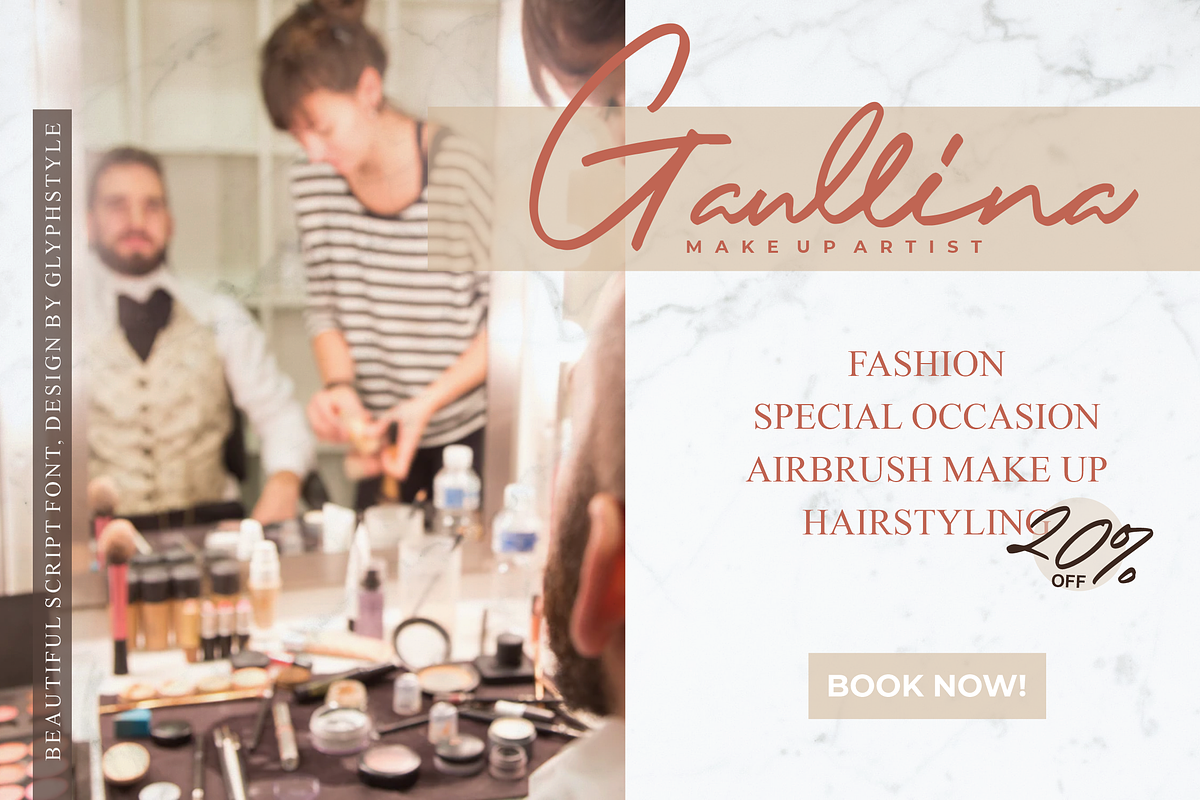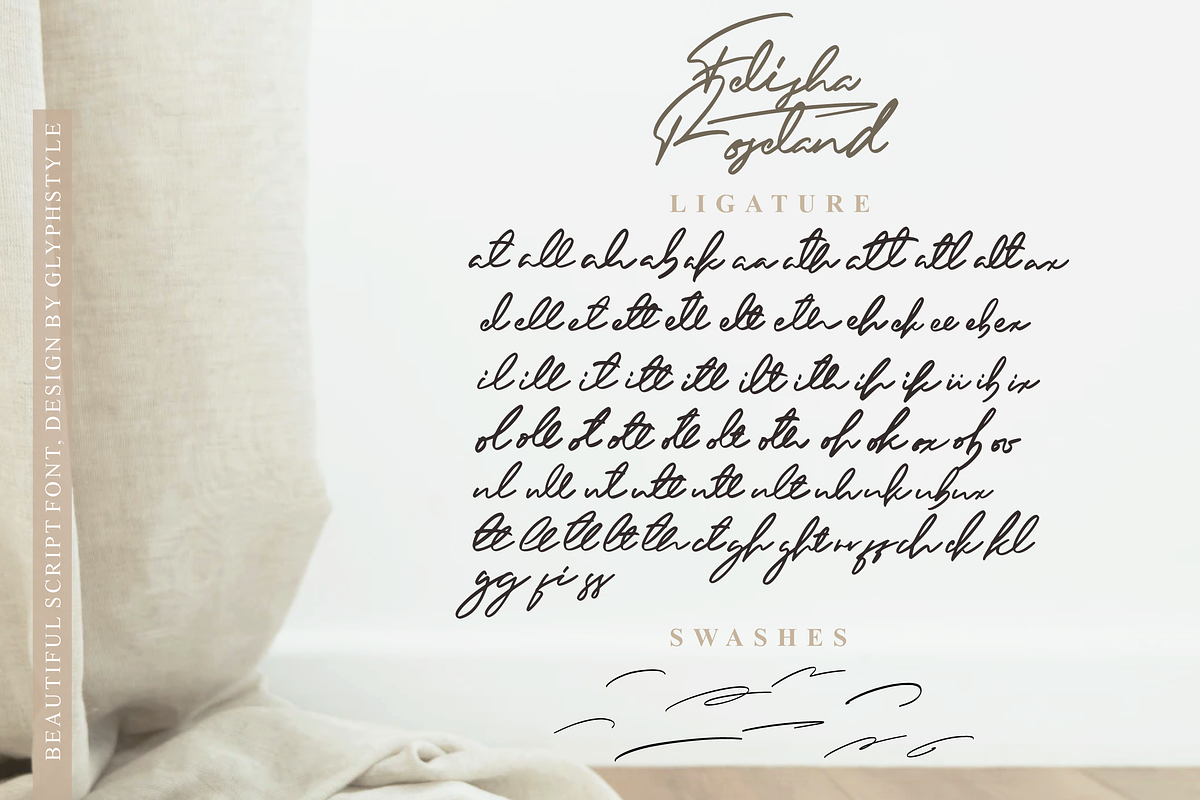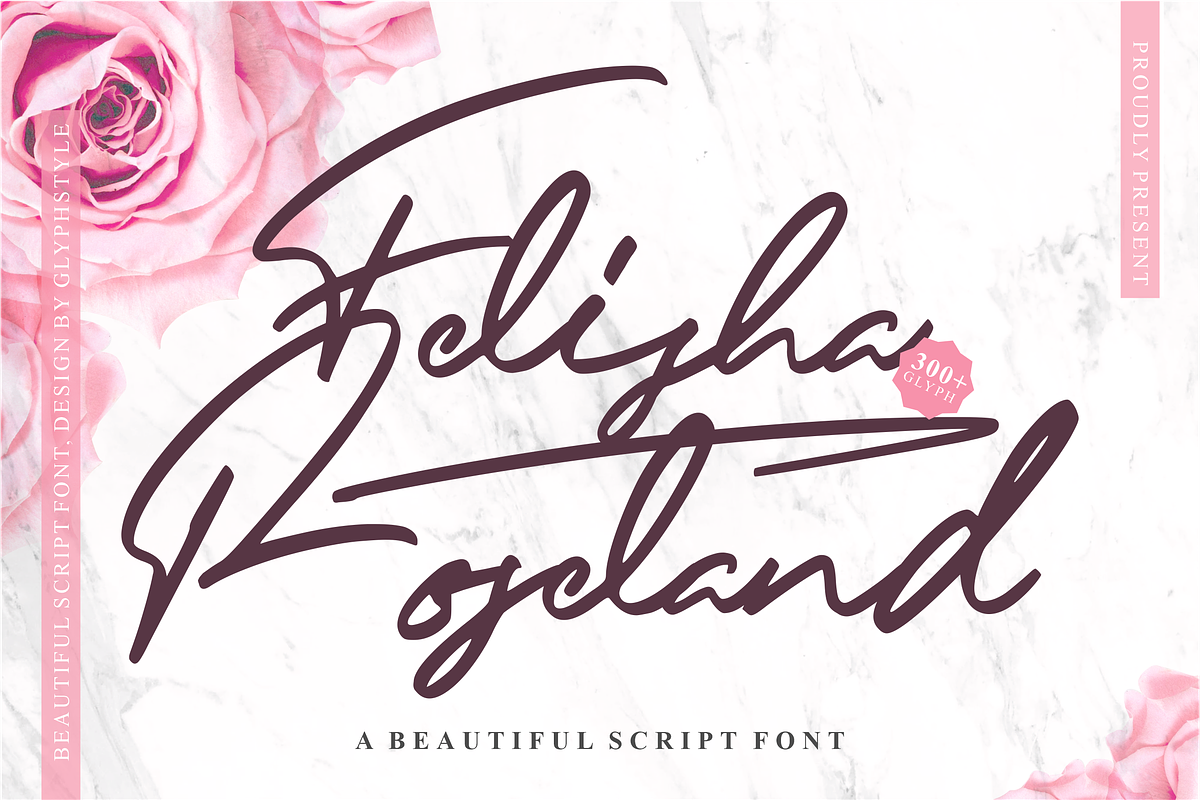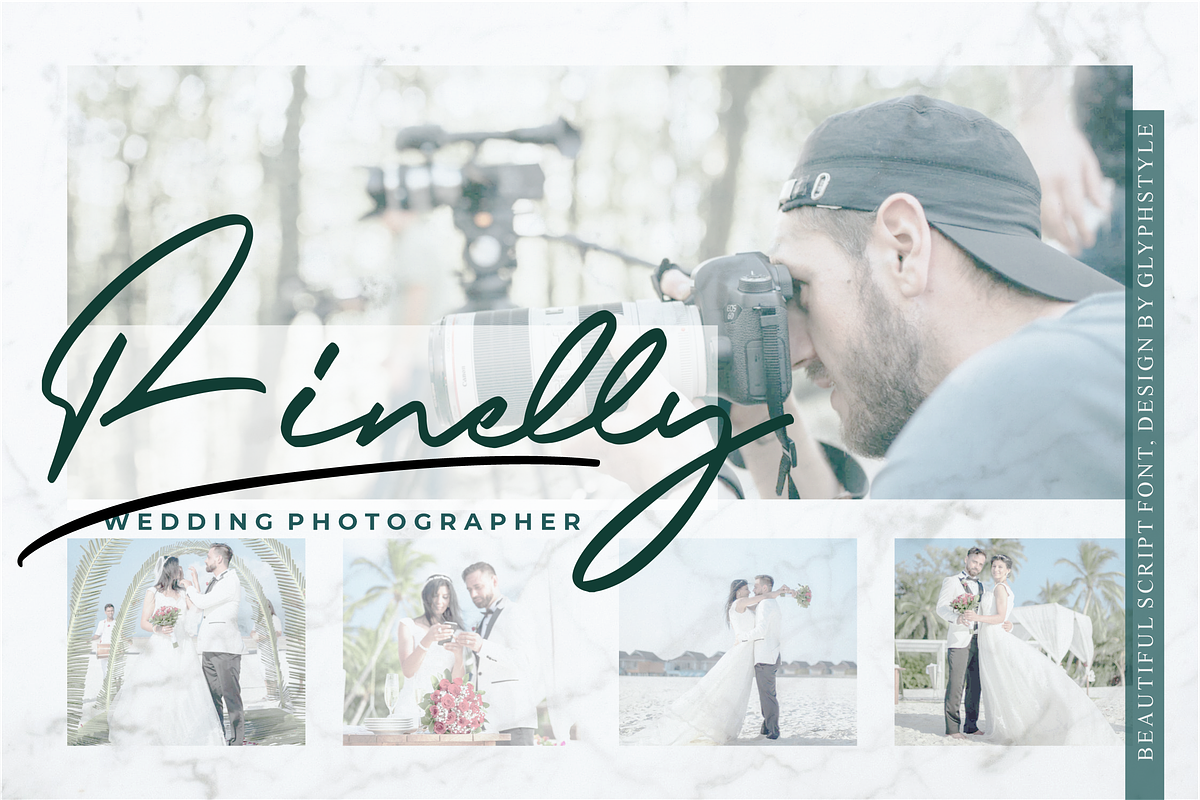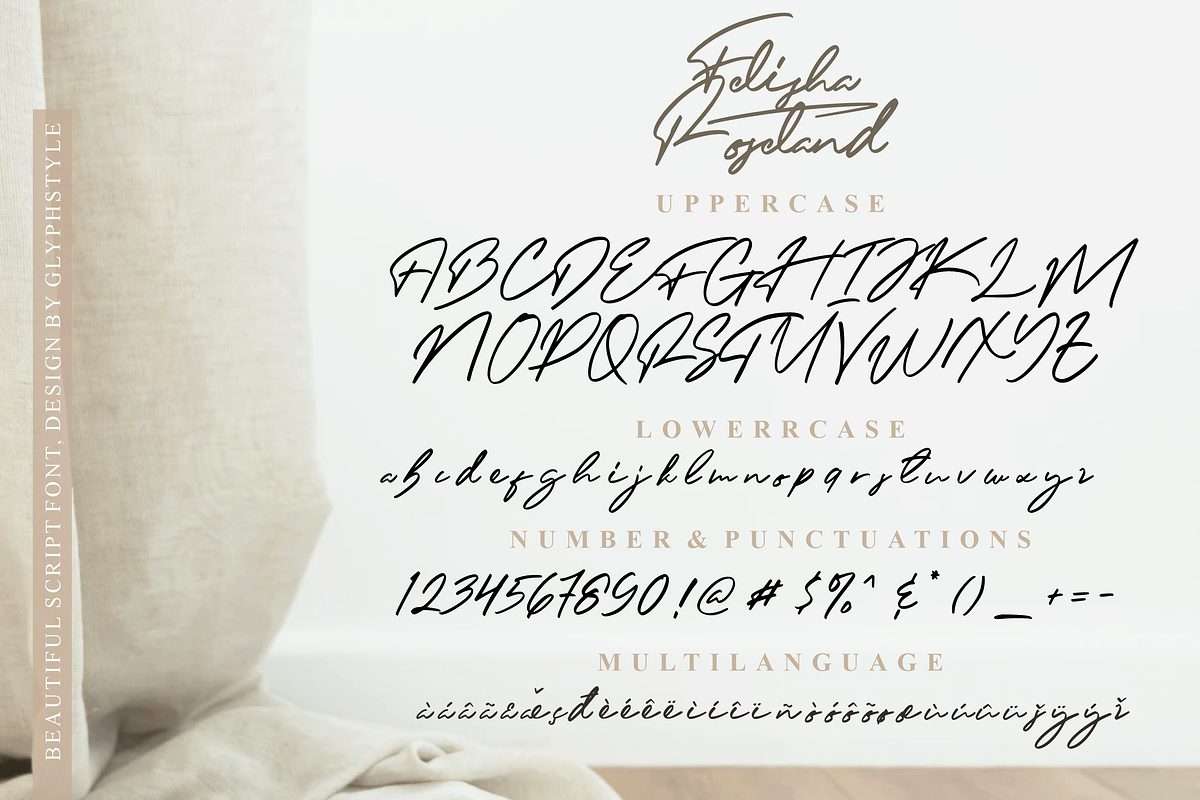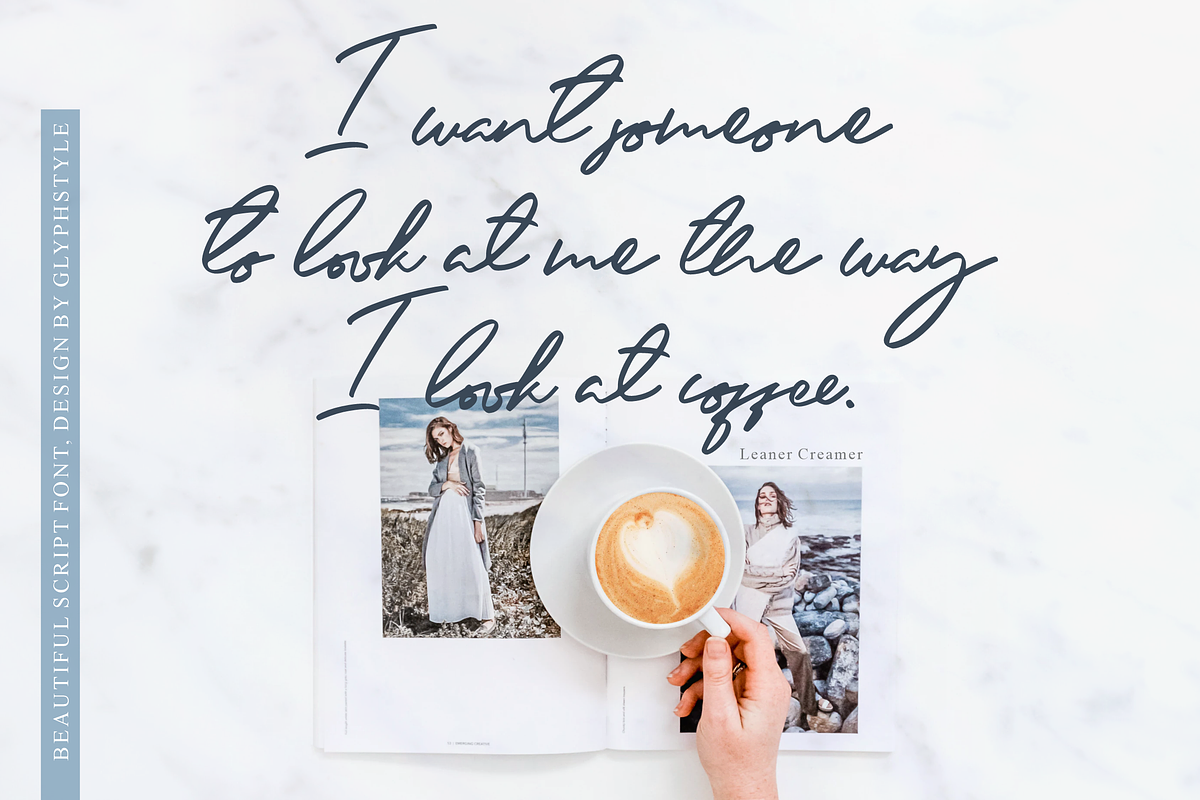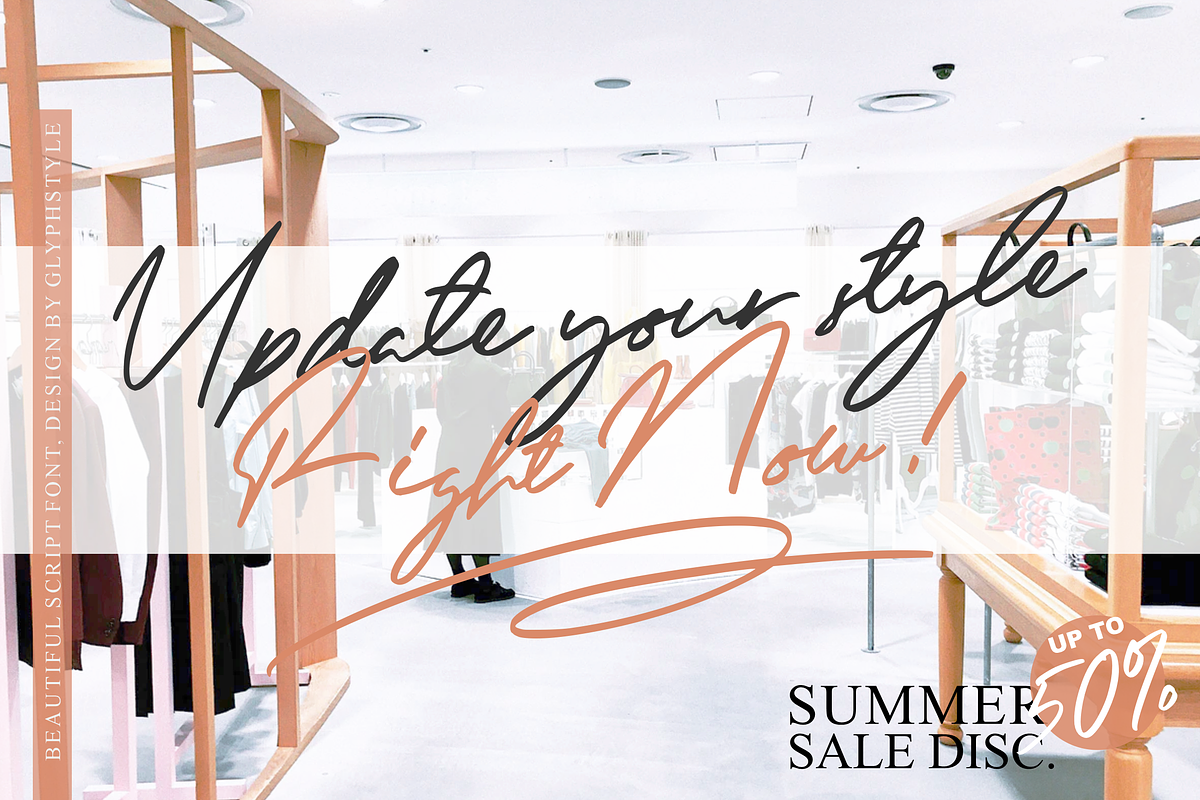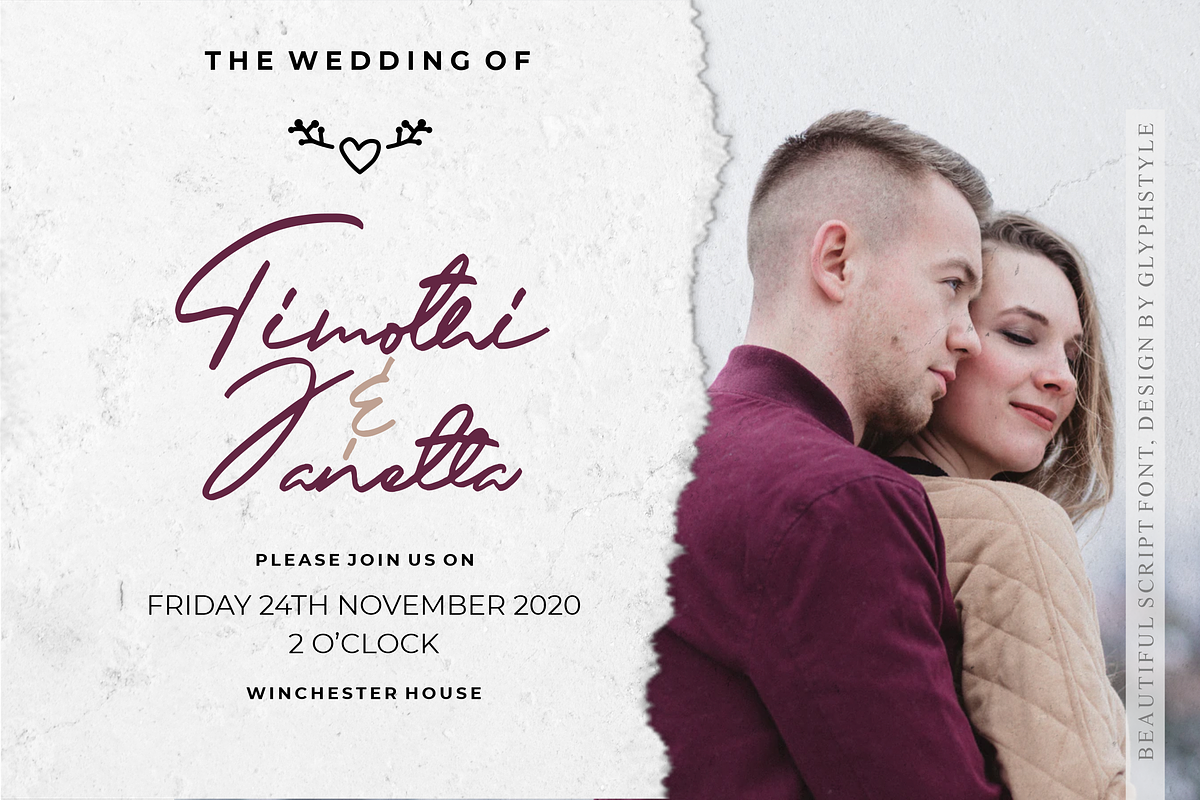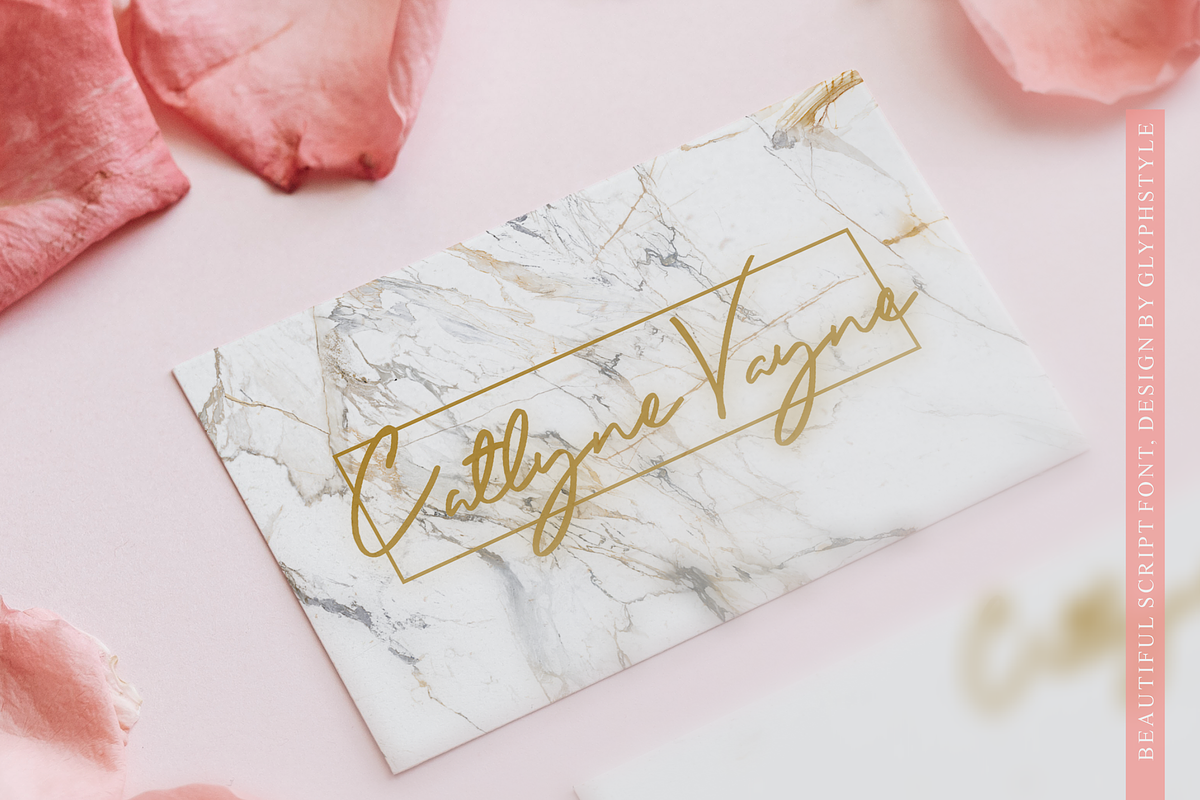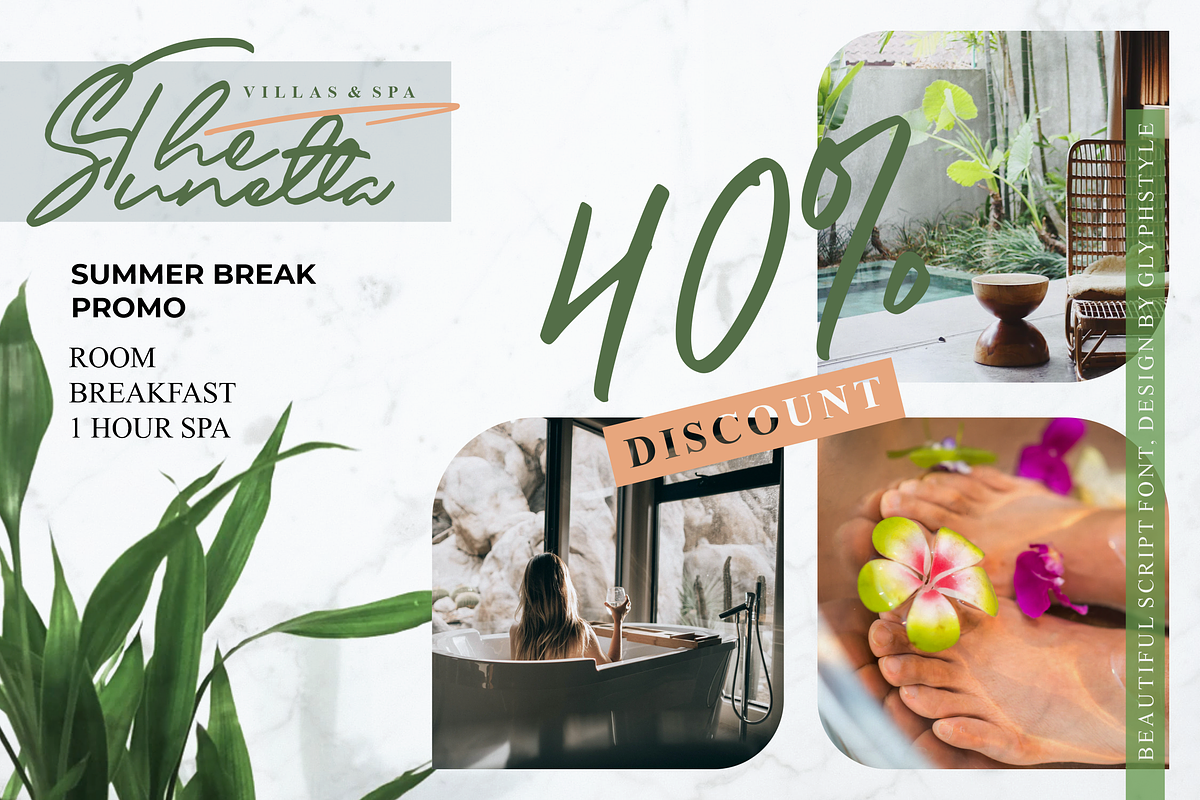
Felisha Roseland Script Font
Felisha Roseland is a smooth handwritten script. Felisha Roseland with smooth curves, beautiful and natural like a hand. Felisha Roseland is perfect for using a brand name, someone's name or any other design requirement.
This font can be used for branding and logos, wedding designs, social media posts, advertisements, business cards, clothing products, quotes, magazine covers, labels, photography, watermarks, invitations, stationery, and any project that requires handwriting with subtle tastes.